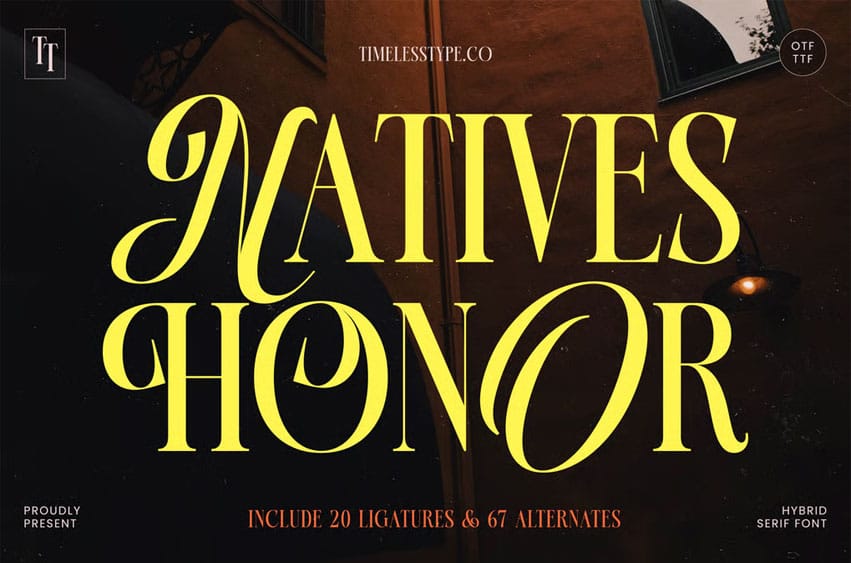
Natives Honor Font is a hybrid serif font that fuses traditional elegance with bold modern artistry. With 20 ligatures and 67 alternates, this typeface offers expressive versatility and visual impact — perfect for branding, editorial design, posters, packaging, and fashion projects that seek timeless sophistication.
Its sharp serifs, sweeping alternates, and refined letterforms create a strong presence while maintaining graceful balance. Inspired by heritage typography and modern trends, Natives Honor delivers both classic charm and contemporary edge, ideal for designers looking to make a striking, stylish statement.